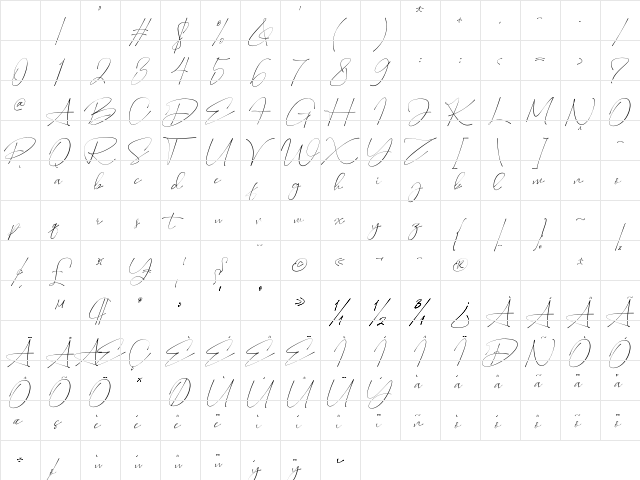
Complete Jelmiroz Regular glyph index. Displaying only characters natively supported by Jelmiroz Regular font.
Jelmiroz is a composed and adaptable typeface that performs quietly and consistently across a wide range of design contexts.